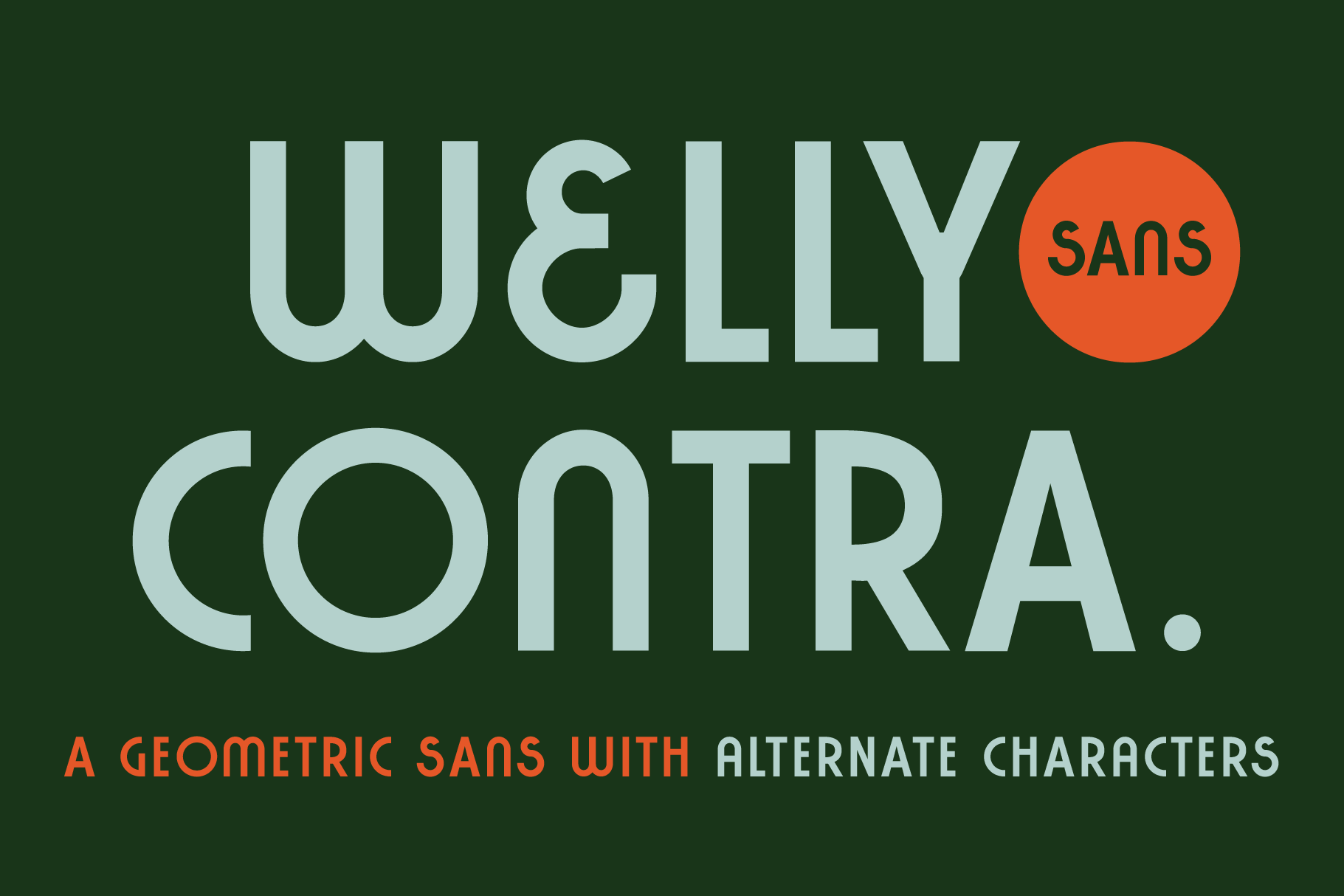
Welly Contra - Geo-sans Font
Welly Contra is a Modern Geometry with a Human Touch. It's playful yet sophisticated, tech-forward geometric sans that strikes the perfect balance between mid-century precision and contemporary warmth. While it carries the DNA of the 80s, it moves away from the "ultra-bold" trends of the past, opting instead for a refined medium weight that feels intentional and balanced.
Welly Contra offers a versatile alternative to heavier display faces, providing a clean, sharp-edged aesthetic that remains approachable. Whether it’s anchoring a minimalist tech brand or adding a structured nostalgia to modern packaging, Blackwood delivers a professional finish without the bulk.
Versatile by Design Welly Contra excels where clarity meets character. Its medium weight makes it exceptionally legible for both punchy headlines and short-form body copy.
Retro-Modern Branding: Give your next identity project a fresh, nostalgic flair that feels timeless rather than dated.
Editorial Layouts: Perfect for headers that need to stand out through shape rather than sheer weight.
Packaging: Ideal for a clean, "boutique" aesthetic—think premium snacks or high-end electronics.